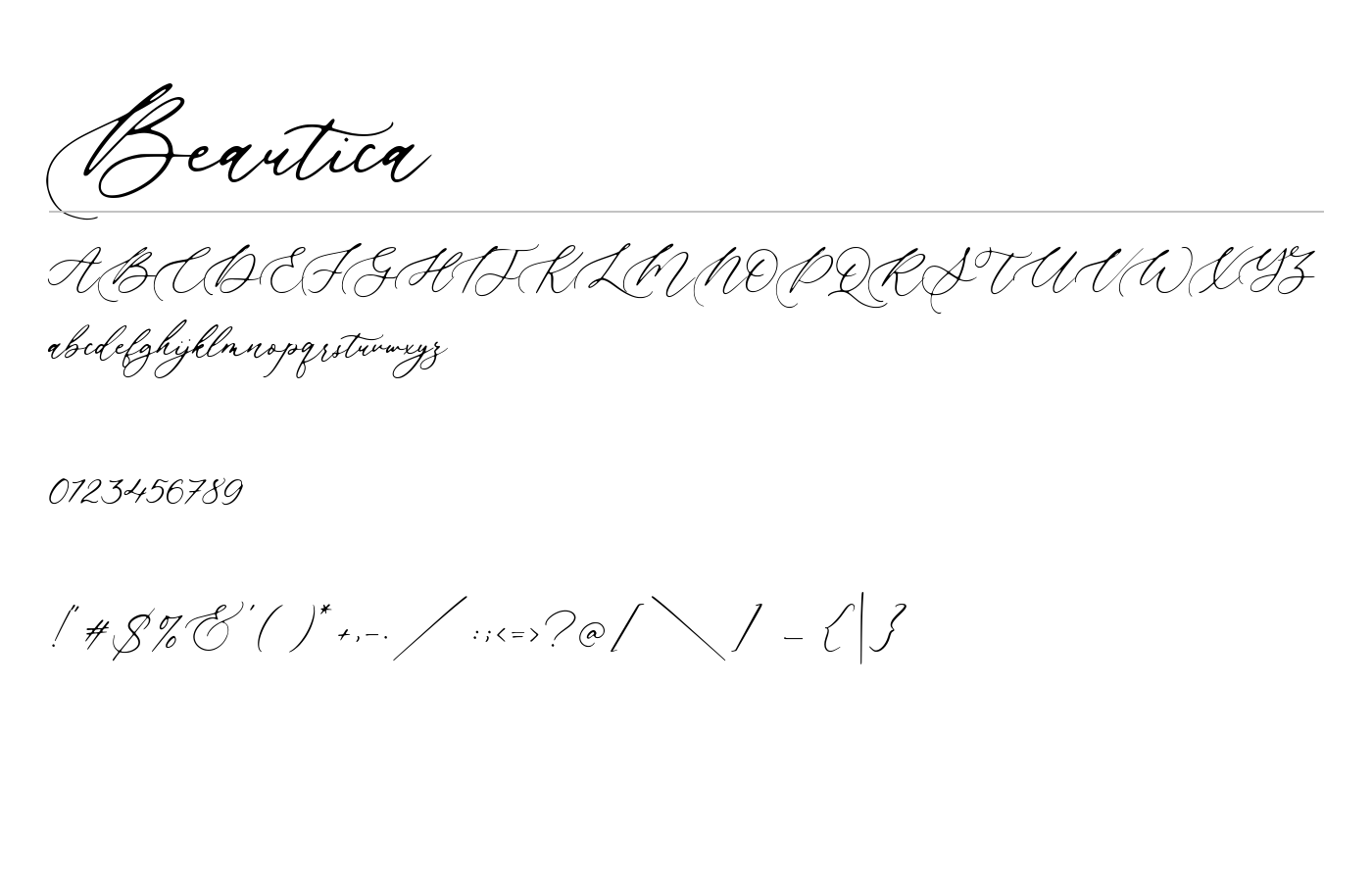
Beautica is an elegant, thin script font with delicate, flowing strokes and graceful swashes that give it a refined and sophisticated feel. Its fine lines and intricate letterforms make it ideal for luxury branding, wedding invitations, and stylish headlines where a touch of femininity and charm is desired. This font works best in decorative or display uses, adding a sense of artistry and high-class appeal to any design.
Beautica Font
About Beautica Font